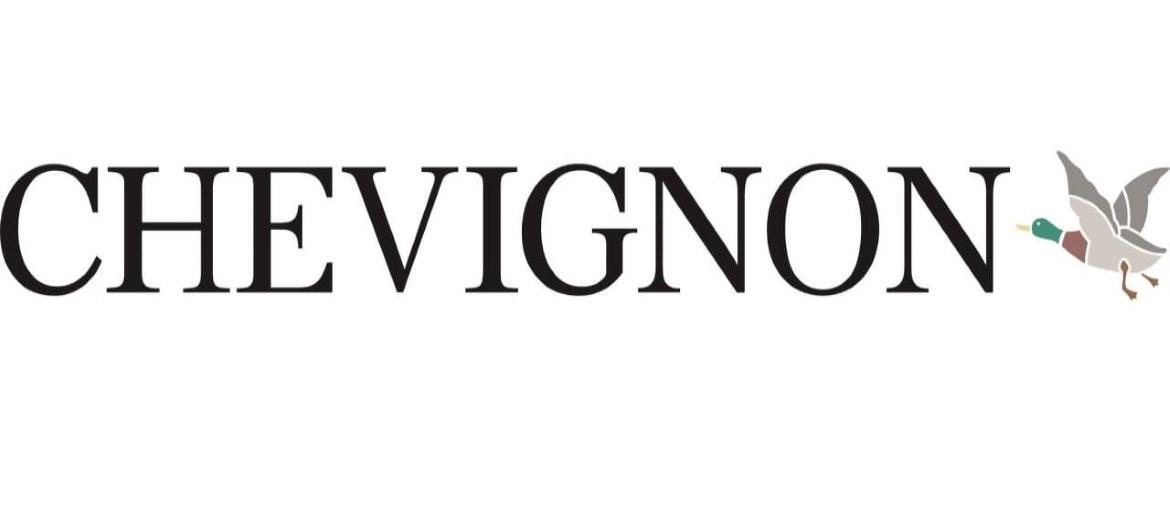
Chevignon Font
What Font is Chevignon?
The Chevignon Font used in the brand’s word‐mark is most likely URW Antiqua Pro Regular, a premium serif typeface characterised by refined letterforms and classic proportions. For designers seeking a more budget-friendly option, we’ve also found a free alternative font that closely matches the same sophisticated serif style—making it suitable for recreating the look of the Chevignon branding while avoiding licensing costs.
About Chevignon
Chevignon is a French fashion label founded in 1979 and known for its vintage-inspired leather jackets, casual ready-to-wear, and bold design identity. The logo features a strong, all‐caps serif word-mark that conveys heritage, style, and attitude. Its typography—bold yet elegant—reflects the brand’s blend of ruggedness and sophistication, and helps establish a distinctive visual presence in the fashion world.